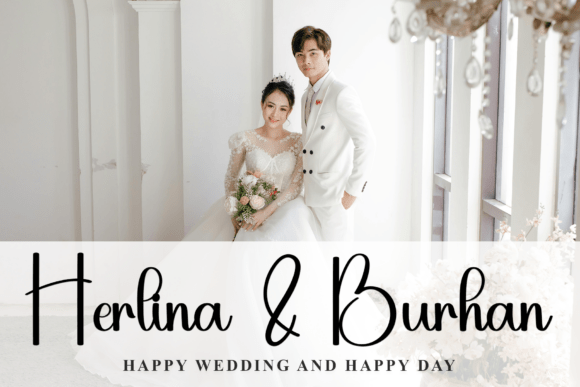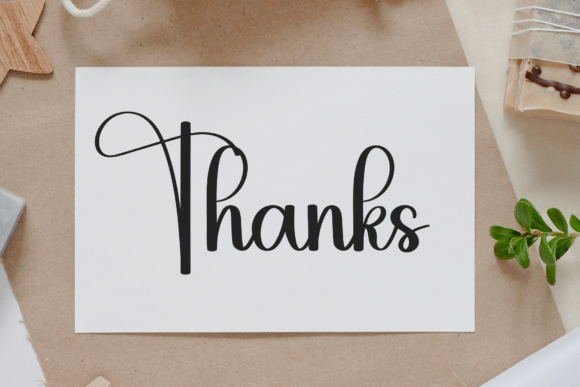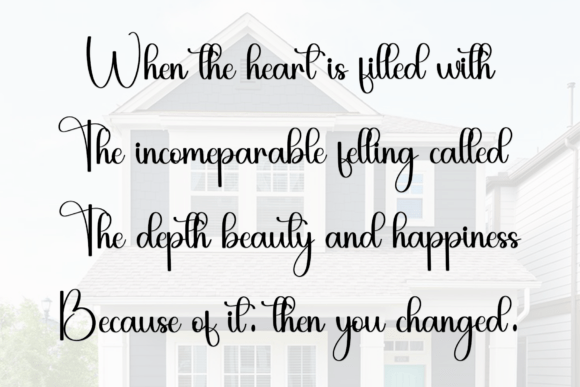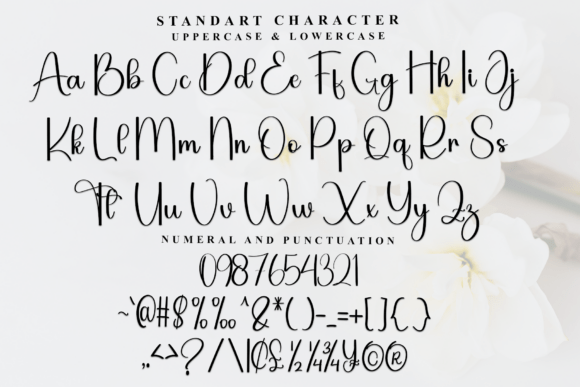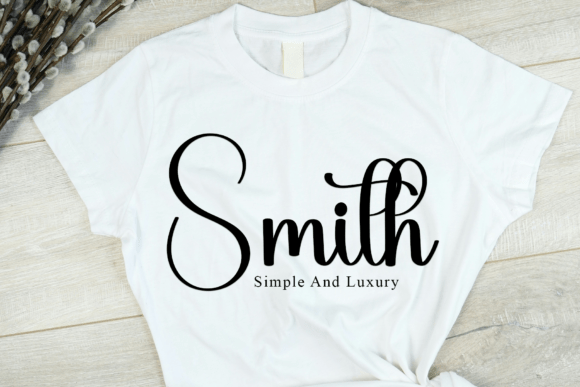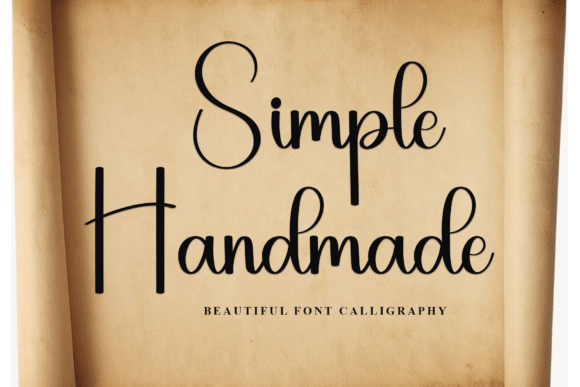
Introducing Bridger Font: The Epitome of Sophisticated Simplicity
In the realm of typography, few fonts manage to strike a balance between elegance and simplicity. However, Bridger Font stands out as a beacon of refined taste, offering a modern script that brings a touch of understated sophistication to any design palette. With its elongated loops, smooth monoline weight, and fluid connections, Bridger embodies a clean and airy aesthetic that is both stylish and highly readable.
The Characteristics of Bridger Font
Bridger Font is defined by several key characteristics that set it apart from other modern script fonts. Its tall x-height is a significant feature, contributing to its exceptional readability. This, combined with its fluid connections, allows Bridger to convey a sense of continuity and flow, making it perfect for a wide range of applications, from high-end interior design branding to chic fashion labels.
Elegance and Readability
The elegance of Bridger Font lies in its graceful, elongated loops and smooth, consistent monoline weight. This design approach gives Bridger a sleek, modern appearance that feels both luxurious and approachable. The monoline weight, in particular, ensures that the font maintains a clean and uncluttered look, which is essential for creating a sophisticated visual identity.
Readability is another area where Bridger excels. The tall x-height and careful consideration of letterforms ensure that text set in Bridger is easy to read, even at smaller sizes. This makes it an excellent choice for body text in lifestyle blogs, as well as for headlines in fashion magazines or branding materials for interior designers.
Applications of Bridger Font
Bridger Font’s versatility is one of its most compelling attributes. Its unique blend of modern simplicity and personal flair makes it suitable for a variety of design projects. Here are some of the ideal applications for Bridger:
• High-end Interior Design Branding: For interior designers and home decor brands looking to convey a sense of luxury and sophistication, Bridger offers a typographic solution that is both elegant and refined.
• Chic Fashion Labels: Fashion brands that aim to project a modern, high-end image will find Bridger to be an excellent choice for their branding and marketing materials.
• Wedding Photography Watermarks: The personal and elegant feel of Bridger makes it perfect for use in wedding photography watermarks, adding a touch of sophistication to photographers’ portfolios.
• Contemporary Lifestyle Blogs: Bloggers focusing on modern lifestyle, fashion, and interior design will appreciate Bridger’s clean aesthetic and readability, making it an ideal choice for both headings and body text.
Why Choose Bridger Font?
In a world where typography plays a crucial role in establishing a brand’s visual identity, choosing the right font can be a daunting task. Bridger Font offers several reasons why it stands out as an excellent choice:
• Unique Aesthetic: Bridger’s blend of modern simplicity and elegant script details offers a unique aesthetic that can help brands stand out.
• Versatility: Its suitability for a wide range of applications makes Bridger a versatile addition to any designer’s font library.
• Readability: Bridger’s design prioritizes readability without sacrificing style, making it perfect for both digital and print applications.
In conclusion, Bridger Font represents a harmonious balance between modern simplicity and elegant script typography. Its sophisticated aesthetic, combined with exceptional readability and versatility, makes it an invaluable asset for designers and brands aiming to elevate their visual identity. Whether you’re working on high-end interior design branding, chic fashion labels, or contemporary lifestyle blogs, Bridger Font offers the perfect blend of style and substance to enhance your designs.